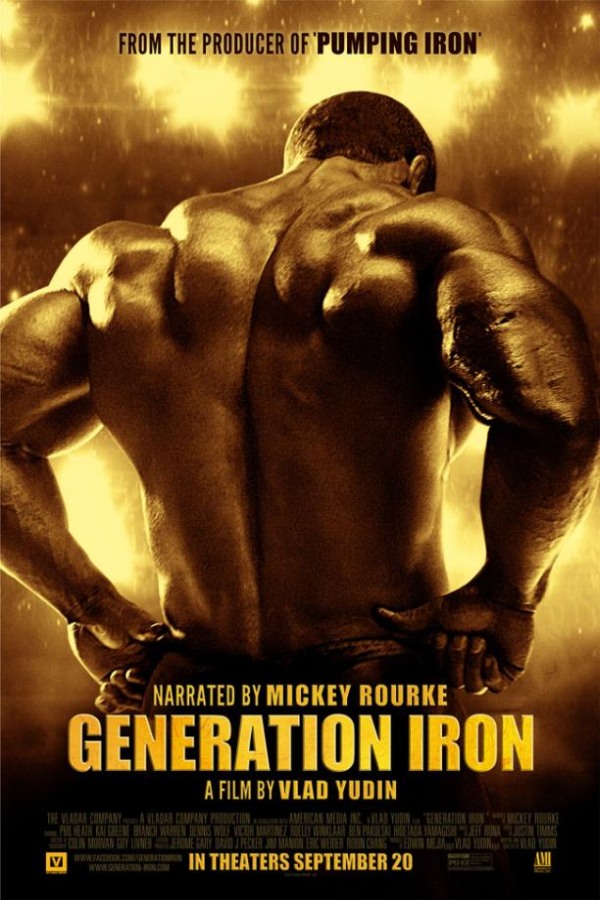
Generation Iron Font
DocumentaryGeneration Iron is a documentary film that explores the world of professional bodybuilding and the individuals who compete at the highest level.
The movie title on the poster is written in Impact font, a realistic sans-serif typeface designed by Geoffrey Lee in 1965 and published by Stephenson Blake foundry. You can learn more about it here.